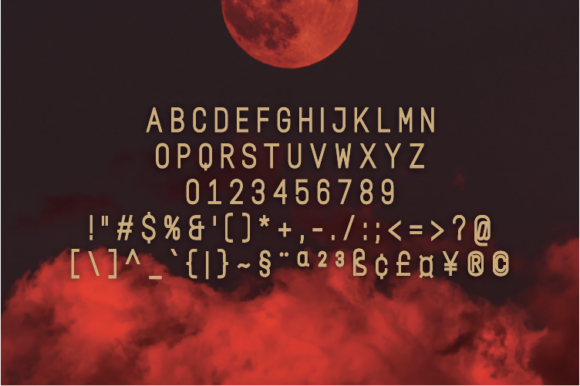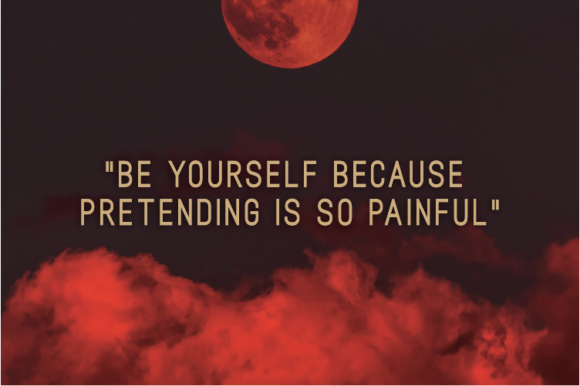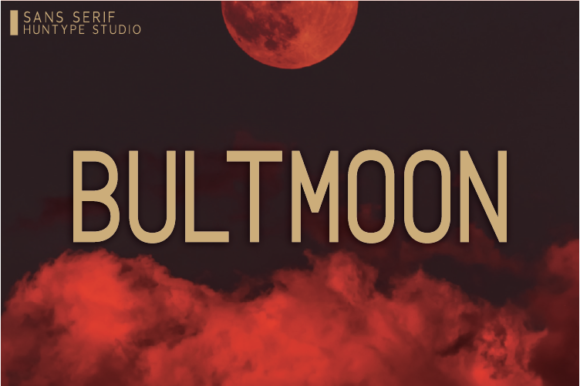
Bultmoon Font: The Ultimate Sans Serif Font for Modern Designs
In the world of typography, fonts play a crucial role in making or breaking a design. A well-chosen font can elevate your design, making it more engaging, readable, and memorable. If you’re a designer or crafter looking for a simple yet fresh sans serif font, look no further than Bultmoon Font. In this article, we’ll explore the features, benefits, and uses of Bultmoon Font, and why it’s becoming a popular choice among designers.
What is Bultmoon Font?
Bultmoon Font is a modern sans serif font designed to provide a clean and fresh look to various designs. Its simplicity and elegance make it an ideal choice for a wide range of applications, from logos and headings to t-shirts, letterheads, and signage.
Key Features of Bultmoon Font
- Simple and Fresh Design: Bultmoon Font boasts a simple and fresh design that makes it perfect for modern designs.
- Sans Serif: The font is sans serif, which means it doesn’t have any decorative lines or flourishes at the end of the letters.
- Highly Versatile: Bultmoon Font can be used in various designs, including logos, headings, t-shirts, letterheads, signage, labels, news, posters, badges, and more.
- Easily Readable: The font is designed to be highly readable, making it perfect for body text and headings.
Benefits of Using Bultmoon Font
So, why should you choose Bultmoon Font for your designs? Here are some benefits of using this amazing font:
- Unique and Modern Look: Bultmoon Font provides a unique and modern look to your designs, setting them apart from the crowd.
- Improves Readability: The font’s clean and simple design improves readability, making it easier for your audience to read and understand your content.
- Enhances Brand Identity: Bultmoon Font can help enhance your brand identity by providing a consistent and professional look across all your designs.
- Easy to Pair with Other Fonts: The font is easy to pair with other fonts, making it perfect for designs that require multiple fonts.
Uses of Bultmoon Font
Bultmoon Font is highly versatile and can be used in various designs, including:
- Logos: Create a unique and memorable logo for your brand using Bultmoon Font.
- Headings: Use Bultmoon Font as a heading font to add a modern and fresh look to your designs.
- T-Shirts: Design eye-catching t-shirts using Bultmoon Font.
- Letterheads: Add a professional touch to your letterheads with Bultmoon Font.
- Signage: Use Bultmoon Font for signage to grab attention and convey your message effectively.
- Labels: Design labels that stand out with Bultmoon Font.
- News: Use Bultmoon Font for news articles to provide a clean and readable experience.
- Posters: Create stunning posters using Bultmoon Font.
- Badges: Design badges that make a statement with Bultmoon Font.